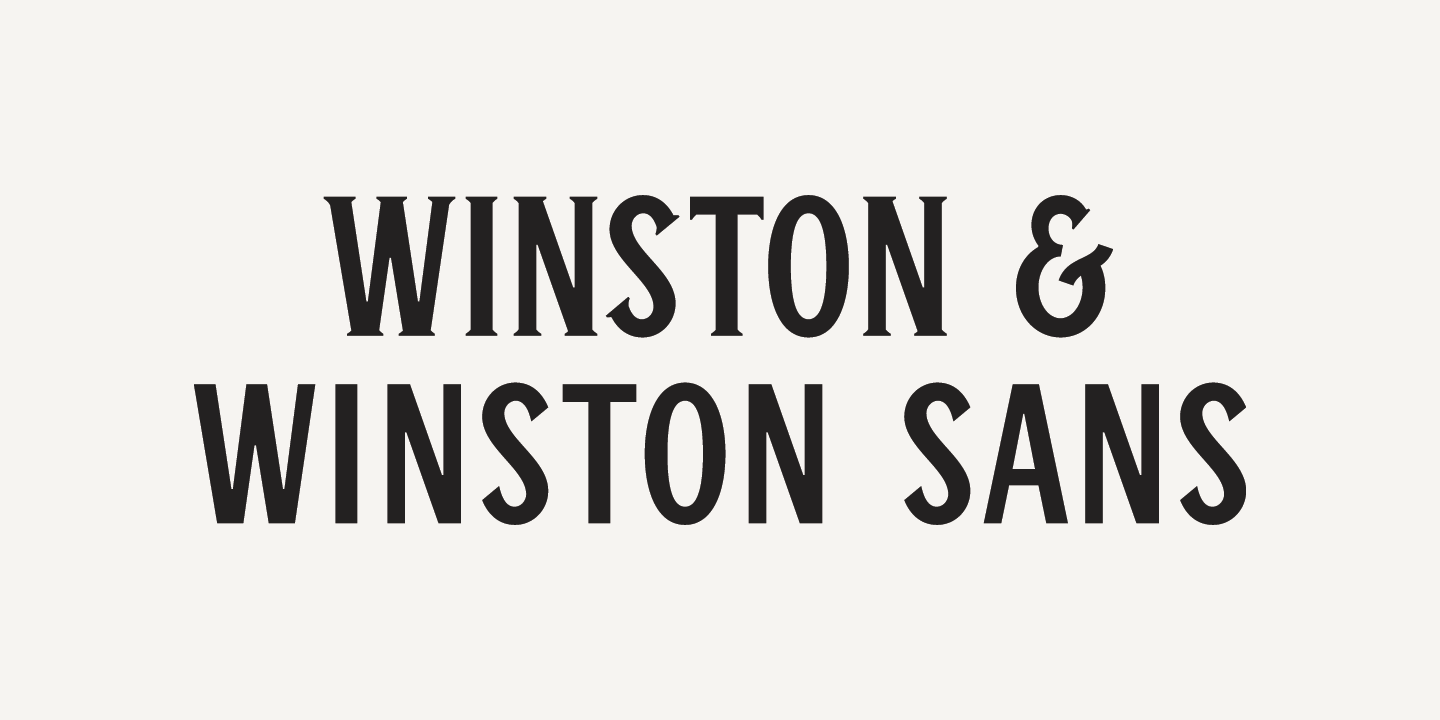
Please note that while you can download Winston & Winston Sans Font for free for testing purposes, you are required to purchase a license for commercial use. This remarkable font duo, featuring both a refined serif and a clean sans-serif style, is an incredibly versatile choice for a vast array of modern and classic design projects. It's perfectly suited for sophisticated branding, editorial design, web interfaces, corporate communications, and any creative endeavor requiring a harmonious blend of traditional elegance and contemporary clarity.
What makes Winston & Winston Sans Font so exciting is the thoughtful synergy between its two distinct yet complementary styles. The serif version often brings a touch of classic sophistication and warmth, ideal for impactful headlines and elegant body text, while the sans-serif counterpart provides a modern, crisp, and highly legible option perfect for digital screens, subtle branding, and clean layouts. This dynamic pairing allows designers to create visually rich and consistent brand identities with ease, offering flexibility without sacrificing a unified aesthetic. It's a true workhorse, built for diverse applications.
The Winston & Winston Sans Font family is truly comprehensive, offering an extensive range of weights and styles across both its serif and sans-serif variants. You can expect to find multiple weights for each, such as Light, Regular, Medium, SemiBold, and Bold, often accompanied by corresponding italics. This broad spectrum ensures that you have the perfect font weight and style for every hierarchical and expressive need within your designs. Unlock boundless creative possibilities and achieve perfect typographic harmony with Winston & Winston Sans Font Free Download!